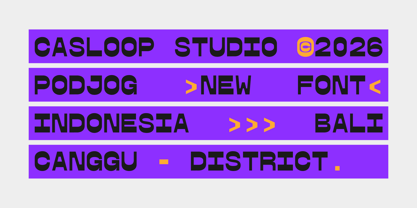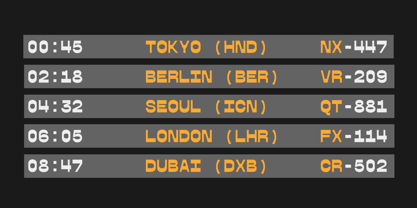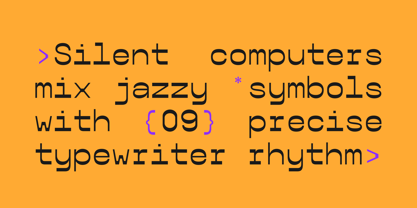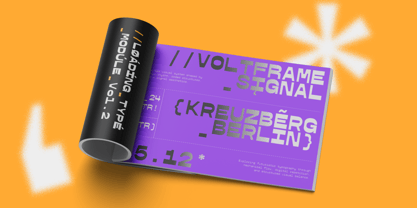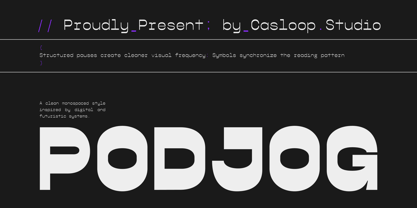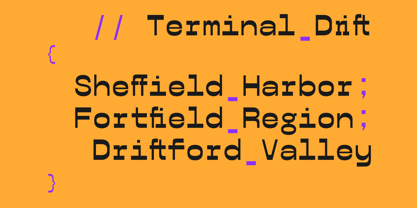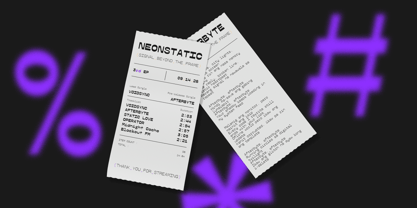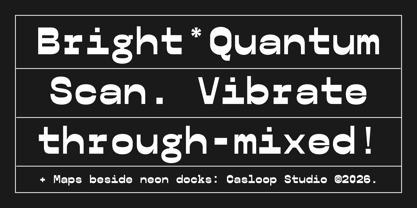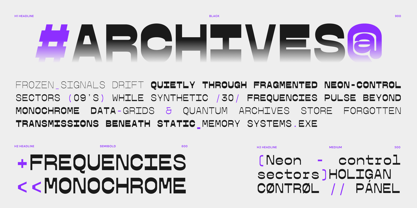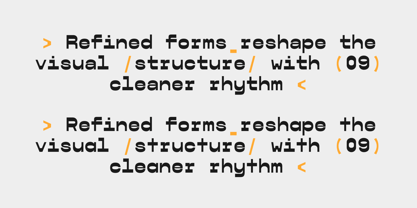
Podjog
by Casloop Studio
The Podjog Font Family was designed by Wantara Putra and published by Casloop Studio. Podjog contains 9 styles and family package options. More about this family
Podjog is a minimalist monospace typeface designed with a strong futuristic and technical character, combining clean modular construction with balanced visual consistency. Its standout characters T, S, and N emphasize repetitive geometric structures that create a rhythmic flow reminiscent of computer terminals, coding interfaces, and modern data panels. The controlled spacing and stable proportions give Podjog a precise, highly functional appearance while maintaining a sleek contemporary aesthetic. With its versatile 9-weight family, Podjog is ideal for type setting, technology branding, editorial systems, UI design, futuristic visuals, and minimalist layouts that require clarity, structure, and modern digital presence. Recommended pairing with: IBM Plex Mono, Space Mono, JetBrains Mono, Helvetica Neue, Univers, OCR-B
Designers: Wantara Putra
Foundry: Casloop Studio